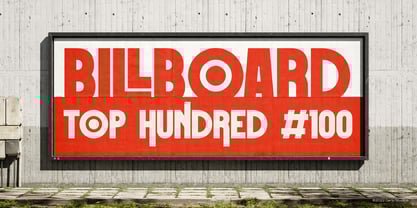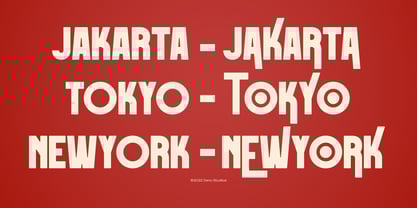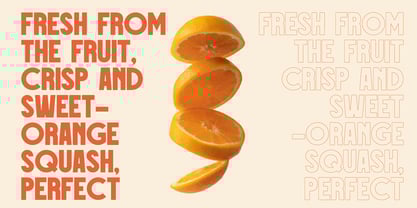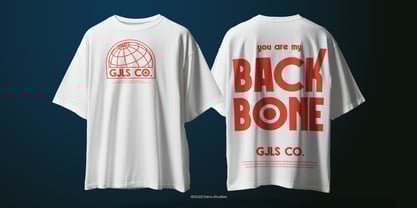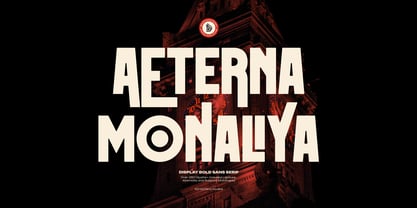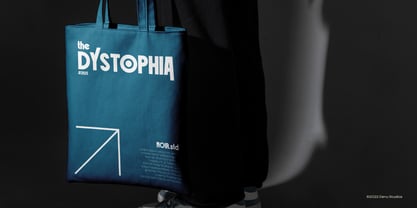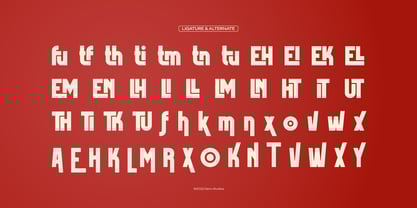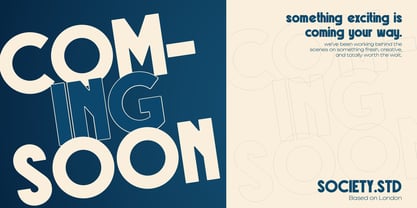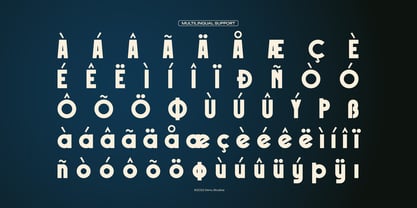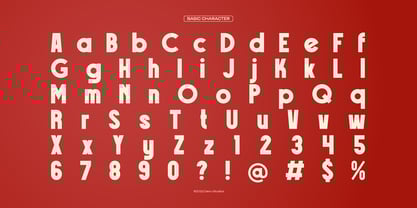
Aeterna Monaliya
The Aeterna Monaliya Font Family was designed by Dede Nugraha and published by Denustudio. Aeterna Monaliya contains 2 styles. More about this family
Aeterna Monaliya | Display Bold Sans Serif, from Denustudios, suitable for any projects such as: logos, branding projects, homeware designs, product packaging, mugs, quotes, posters, shopping bags, t-shirts, book covers, name card, invitation cards, greeting cards, label, photography, watermark, special events, and all your other lovely projects that need Display Bold Sans Serif a taste.
• Regular and Italic
• Alternate and Ligature
• Fonts include multilingual support